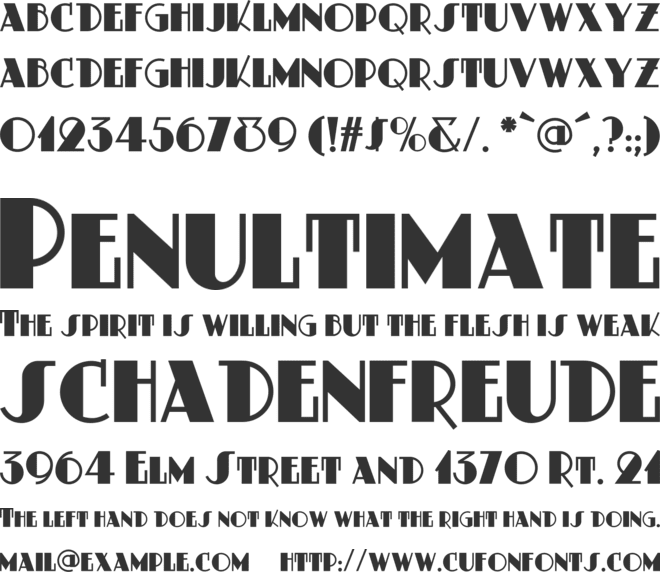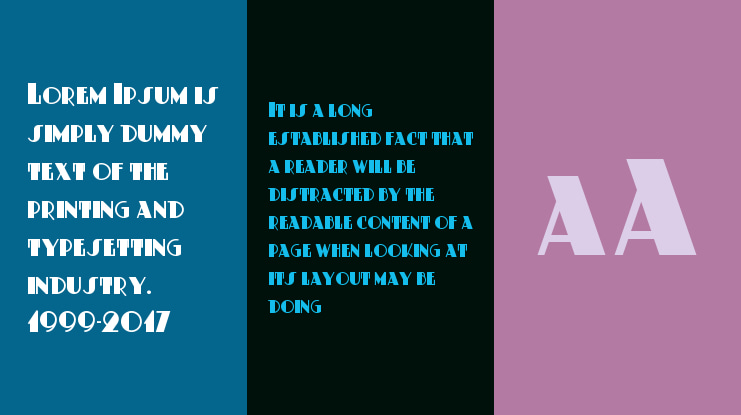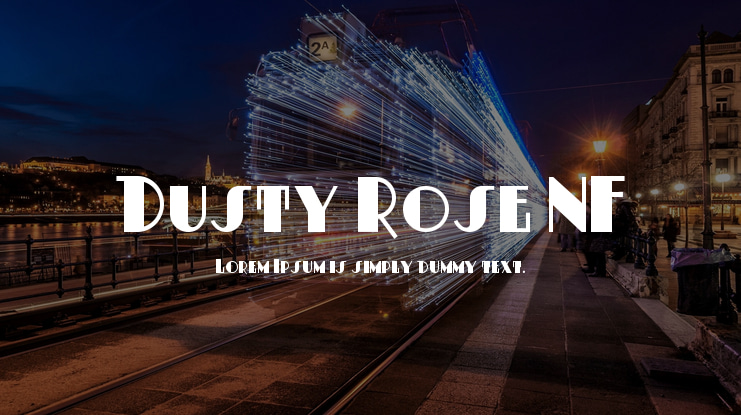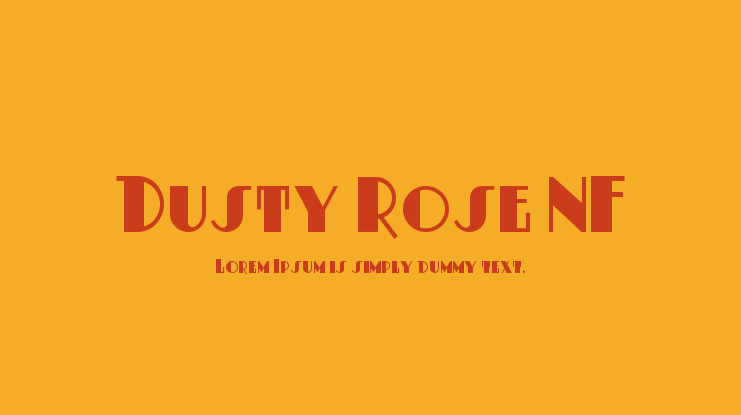
Based on the logotype lettering for the Dutch magazine Geillustreerd Schildersblad in 1940, this devilishy different Deco font will add a bit of naive charm to any project it graces.